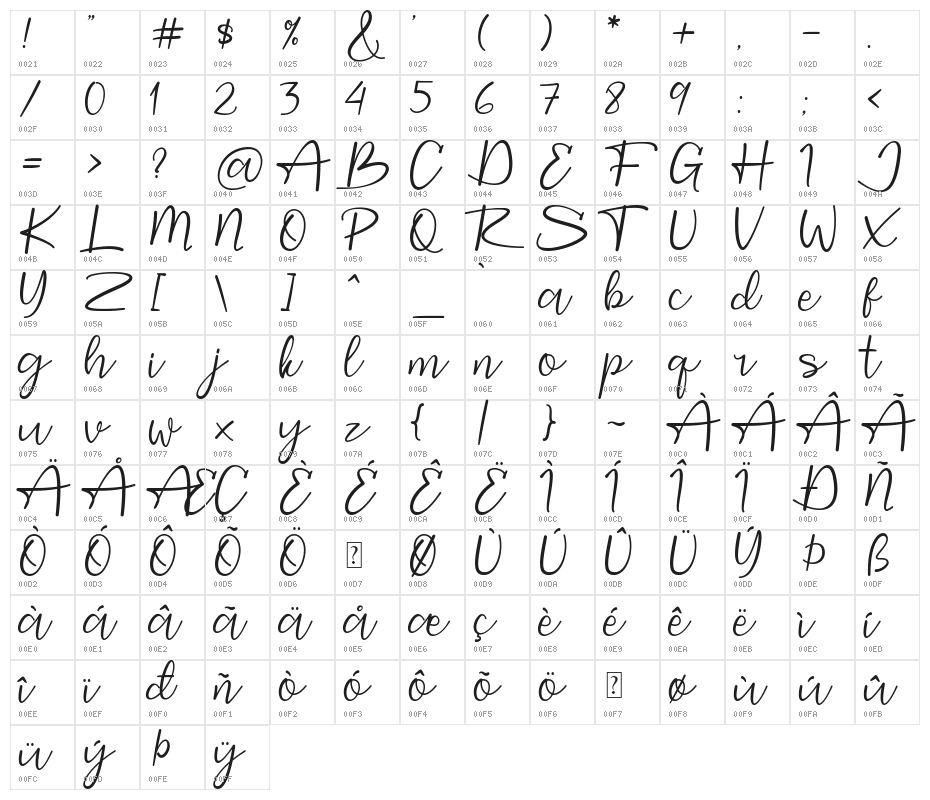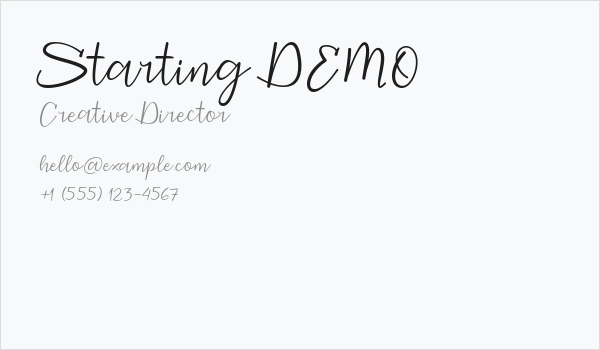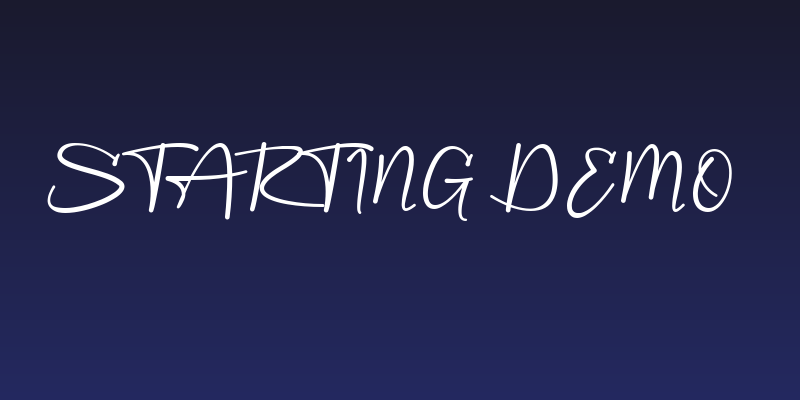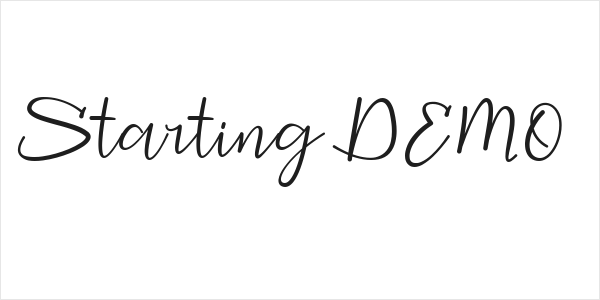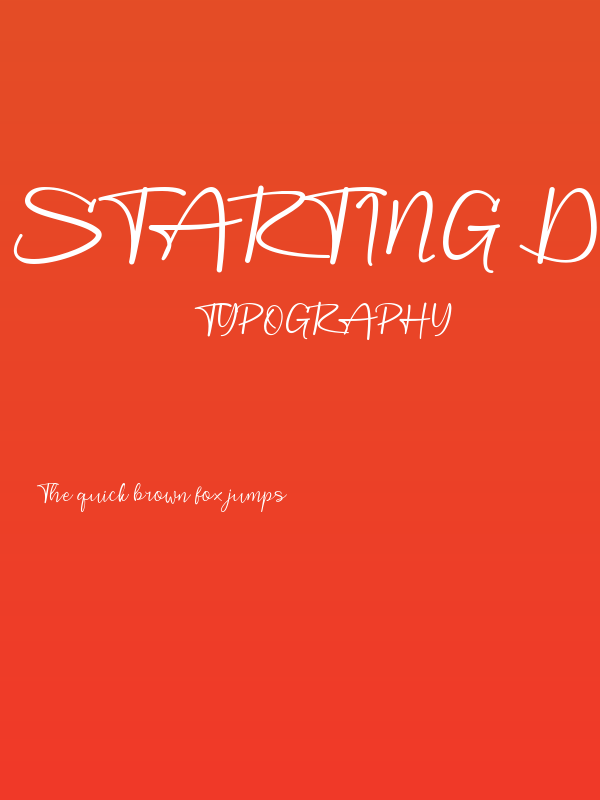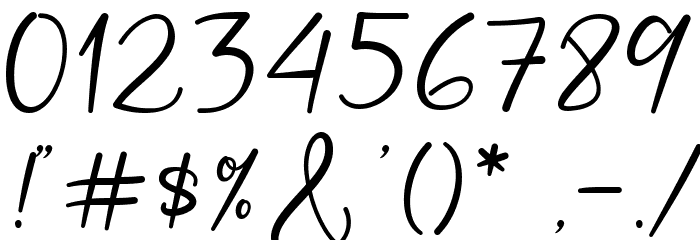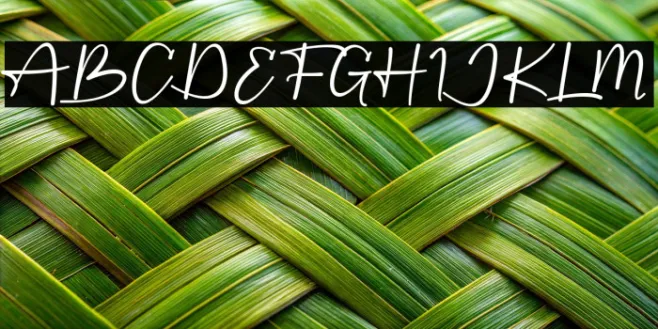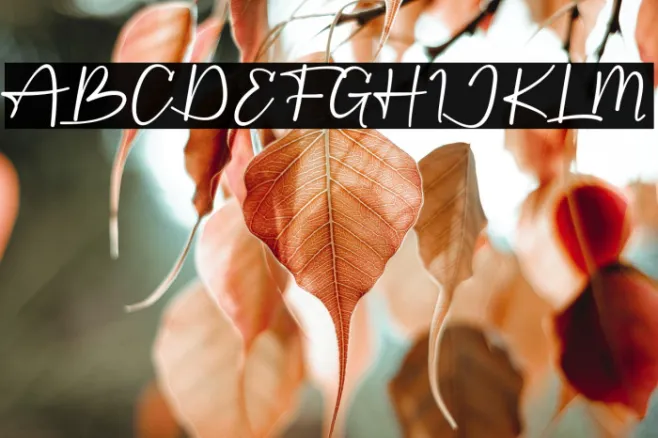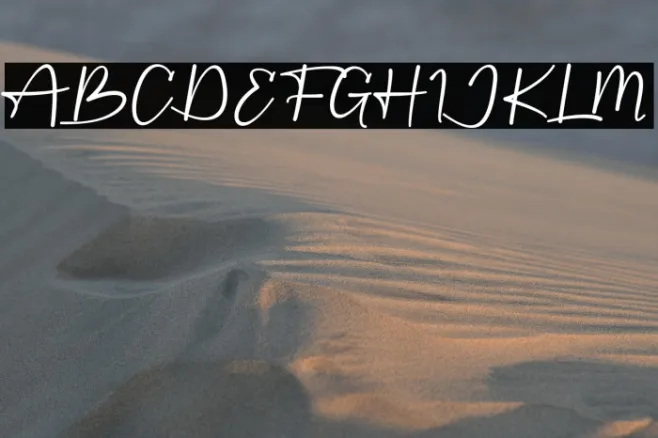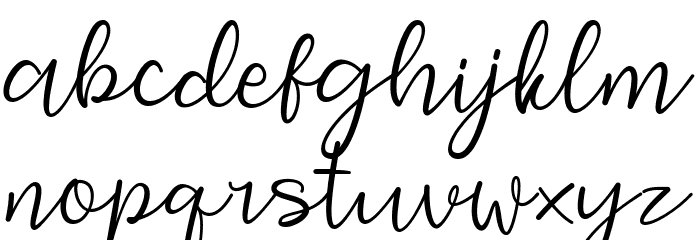
Starting DEMO Font
Starting DEMO Description
This font features a lively and flowing script style, characterized by its elegant and fluid letterforms. The uppercase letters are distinct with a slight slant, giving a sense of movement and grace. The lowercase letters are connected, enhancing the cursive appearance and providing a seamless flow. The numerals maintain the same fluidity, ensuring consistency throughout the font. Special characters are designed to complement the overall style, with a playful yet sophisticated touch. This font exudes a sense of elegance and creativity, making it suitable for a variety of design projects.